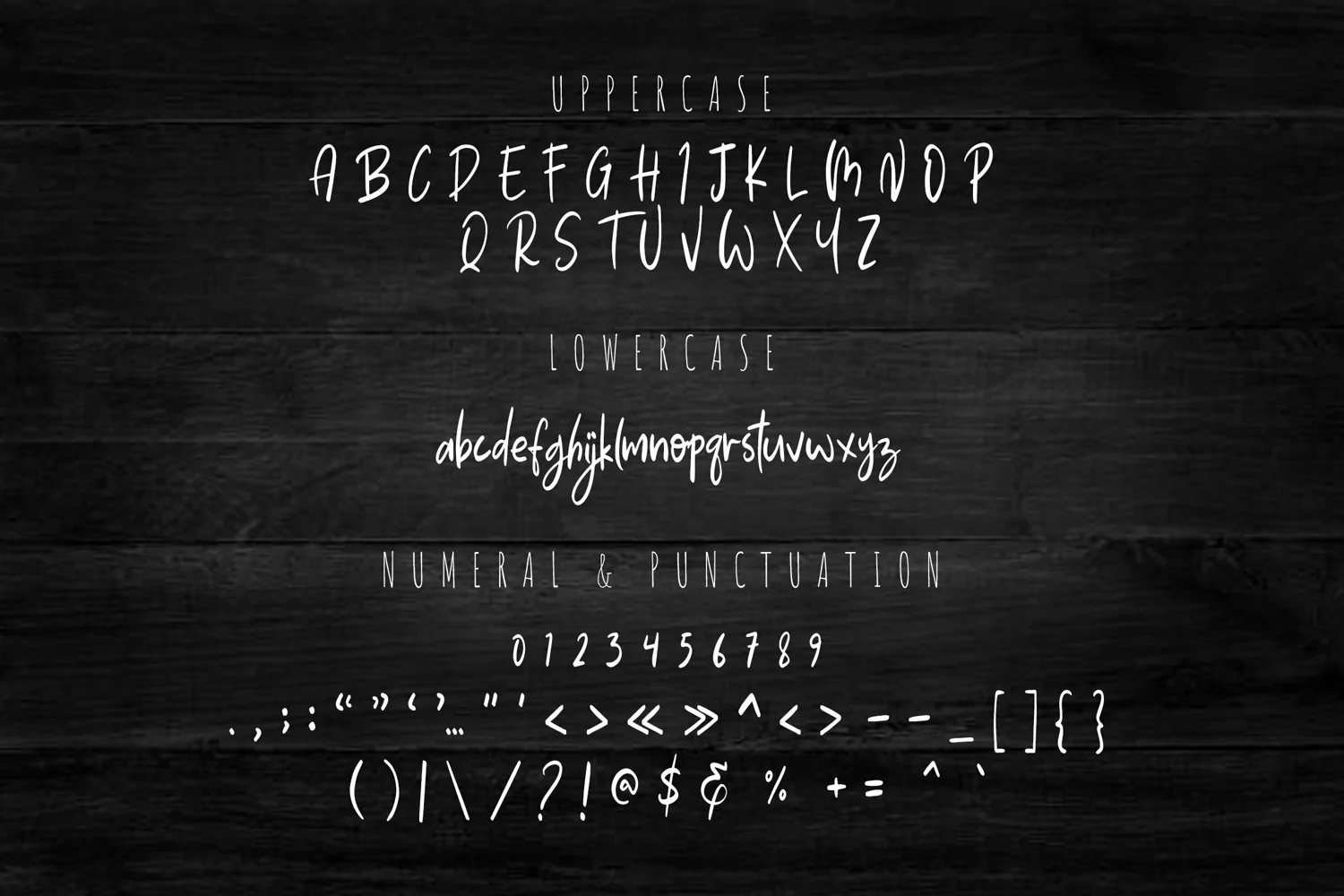
Roasted Chicken is a perfect and friendly handwritten font. Its natural and unique style makes it incredibly fitting to a large pool of designs. The only limit is your imagination!
Roasted Chicken